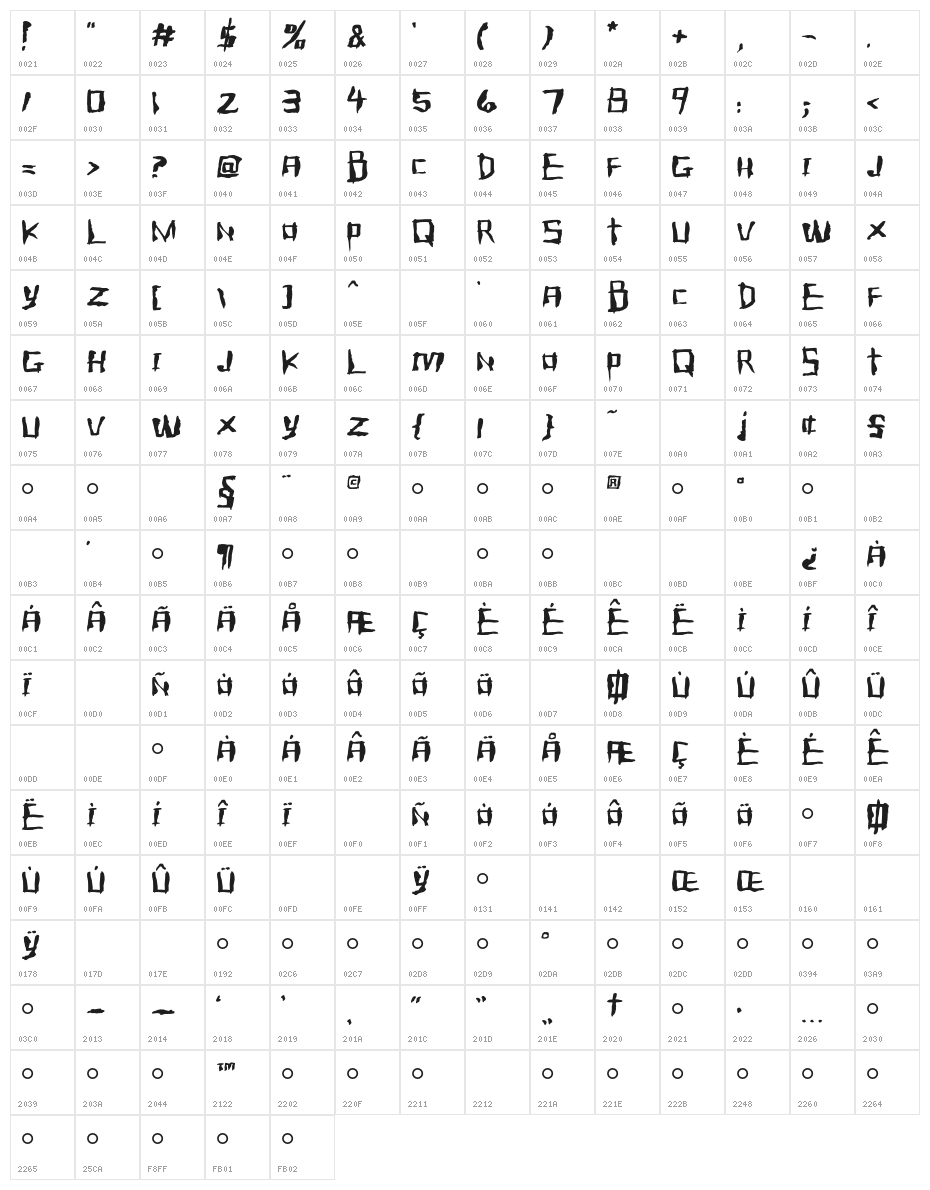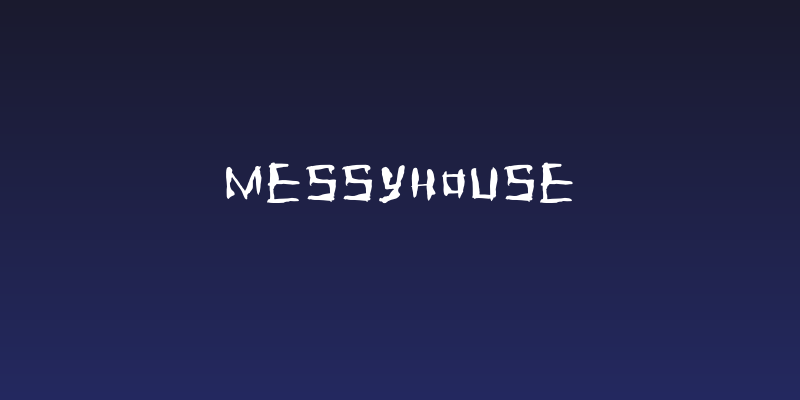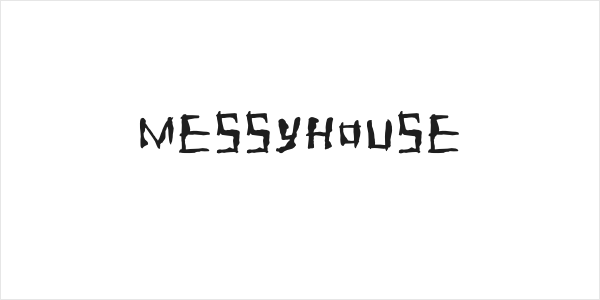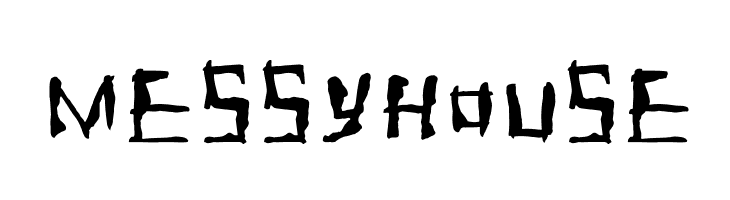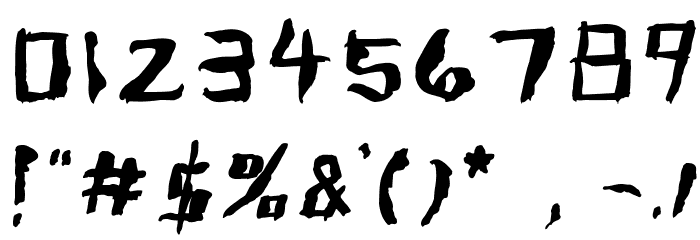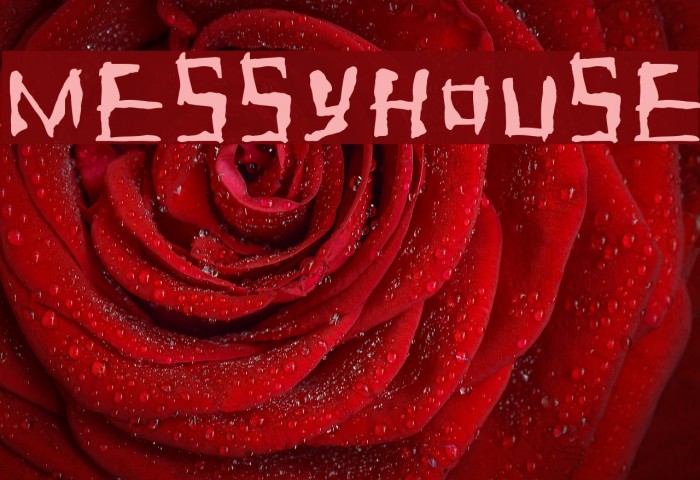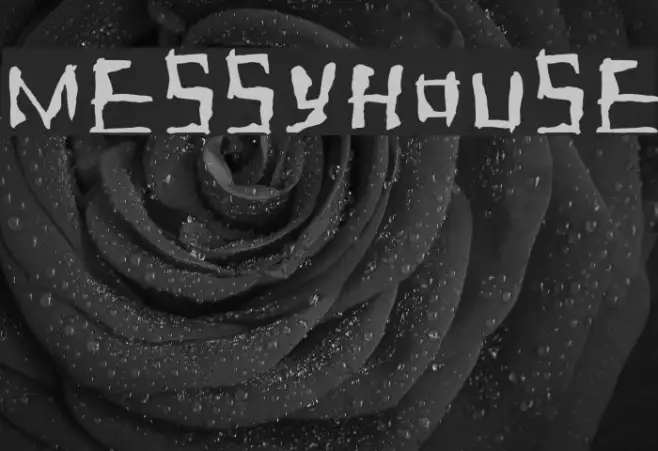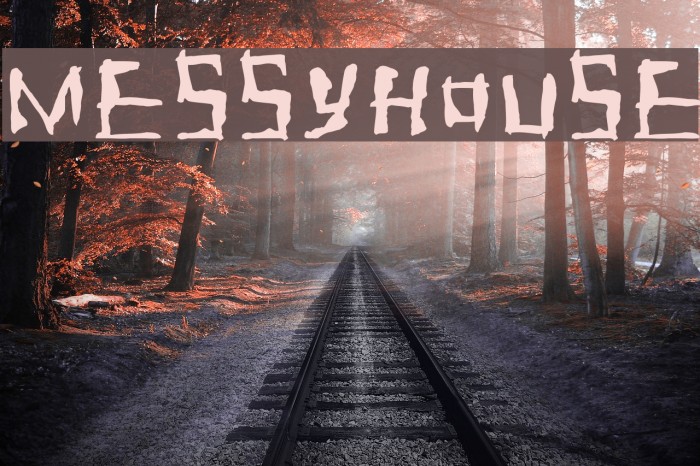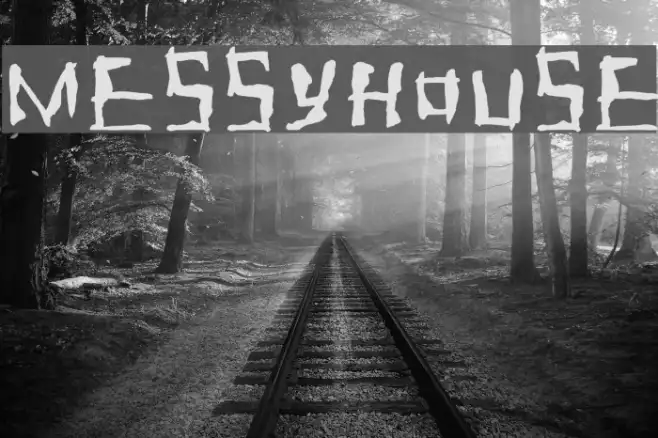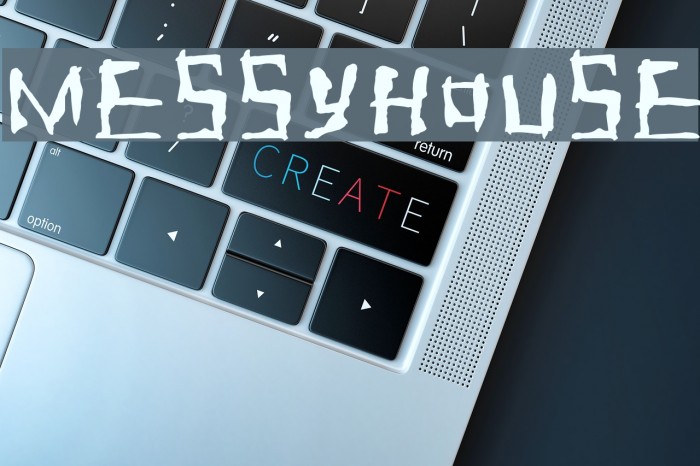
Messyhouse Font
Messyhouse Description
This font features a bold and jagged style, reminiscent of hand-drawn or brush-stroke lettering. The characters have an irregular and edgy appearance, with uneven strokes that give it a raw and dynamic feel. The uppercase and lowercase letters maintain this rugged aesthetic, creating a cohesive look throughout. The numbers and special characters follow the same design principles, ensuring consistency across all elements. This font's unique and striking design makes it ideal for projects that require a bold statement or an artistic touch.
| Proposed Projects | Ideal for album covers, horror movie posters, graffiti art, and edgy branding materials. |